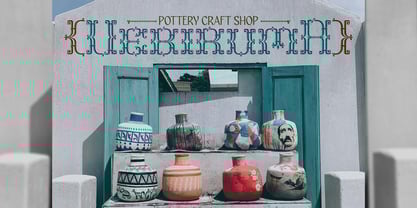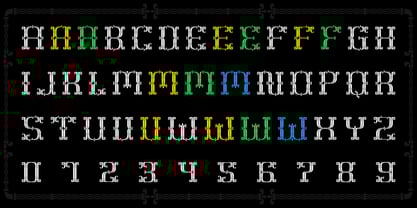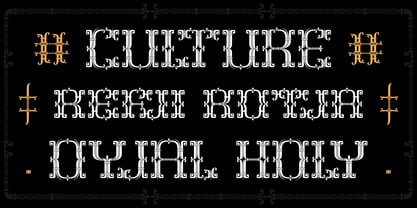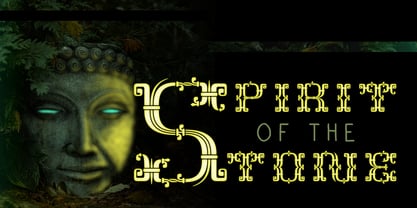
Gerban
by Greentrik6789
The Gerban Font Family was designed by Tri Kuncoro and published by Greentrik6789. Gerban contains 2 styles and family package options. More about this family
Gerban – Ornate Heritage Typeface
Unveil the relic. Carve your words in stone.
Gerban is a bold decorative typeface forged from the echoes of forgotten empires. Inspired by ancient stone engravings, sacred architecture, and mystical symbology, designed to command attention with every letterform.
Each glyph is adorned with intricate hooks, crossbars, and ornamental spines—crafted to resemble ancient ironwork or arcane insignias. Whether you're designing for a fantasy novel, a craft brand, a ceremonial product, or a music label steeped in mystique, Gerban brings the soul of history to your modern canvas.
Designed with love for fantasy, folklore, artifact branding, and sacred themes
Is not just a typeface. It’s an incantation.